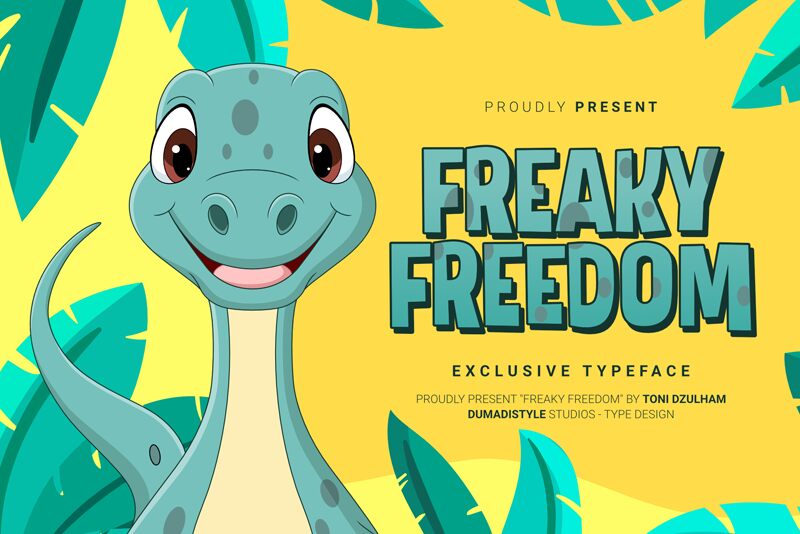
Freaky Freedom
Freaky Freedom, designed by DumadiStyle, is a bold display font that's perfect for adding a touch of fun to your creative projects. With an extra-condensed width and comic style, this font is ideal for designs that need to make a statement. It's great for posters, flyers, book covers, and even social media graphics. The bold weight of the font ensures that it catches the eye and demands attention. Whether you're working on a project for a children's book or an event poster, Freaky Freedom is sure to add some playful charm to your designs. Try it out today!